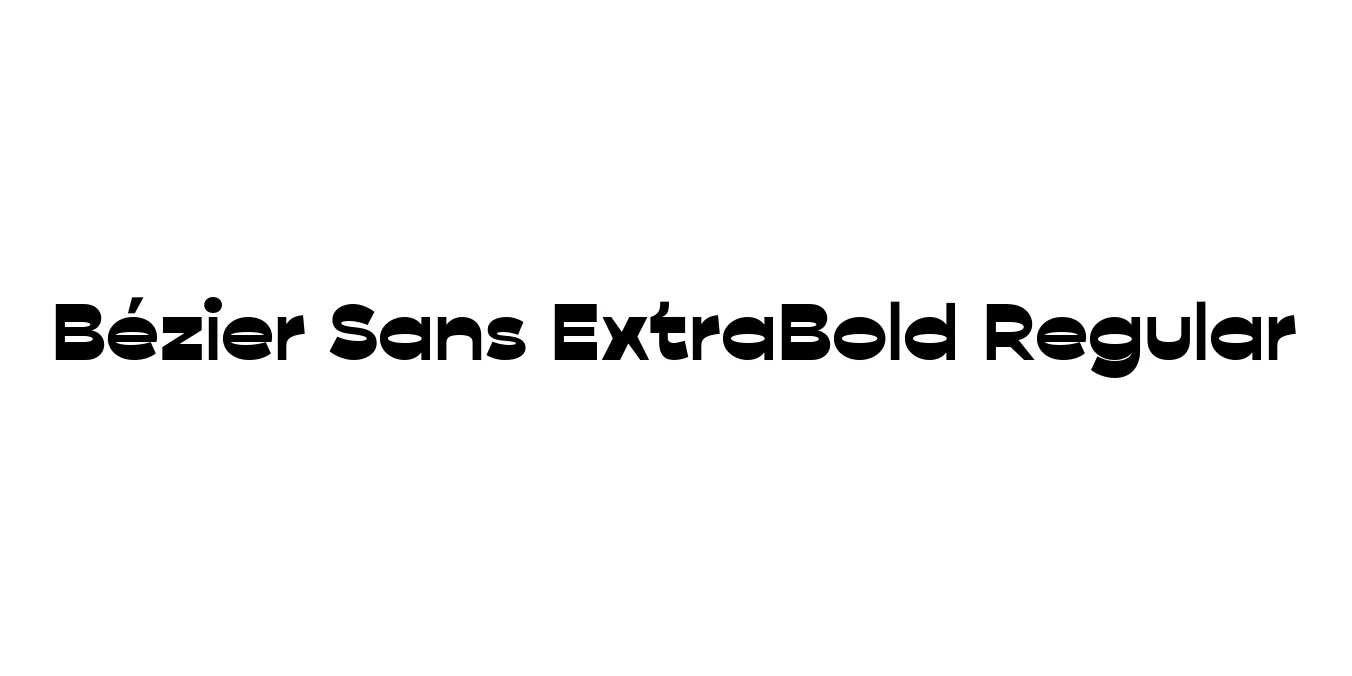
Bézier Sans ExtraBold Regular
Designed by Jonathan Hill (The Northern Block)
Bézier Sans ExtraBold Regular is a contemporary sans-serif typeface designed with a focus on mathematical precision and geometric purity. Rooted in the principles of 20th-century modernist design, it emphasizes the smooth, fluid nature of Bézier curves to create letters that feel both engineered and organic. The ExtraBold weight, in particular, was developed to provide a powerful visual impact while maintaining the clean, open counters that ensure readability even at high density.
Since its release, the Bézier Sans family has become a staple for designers looking for a versatile typeface that bridges the gap between humanist warmth and geometric rigidity. The Regular width of the ExtraBold weight offers a substantial presence on the page, making it a favorite for digital interfaces and editorial design. Its balanced proportions and distinctive character shapes allow it to function seamlessly across both high-resolution print and modern screen environments.
Bézier Sans ExtraBold Regular Best Uses
Excellent for high-impact titles and catching attention in editorial layouts.
Ideal for bold logo designs and cohesive corporate identity systems.
Works perfectly for large-scale print media where visibility is key.
Great for prominent buttons and headers in modern web applications.